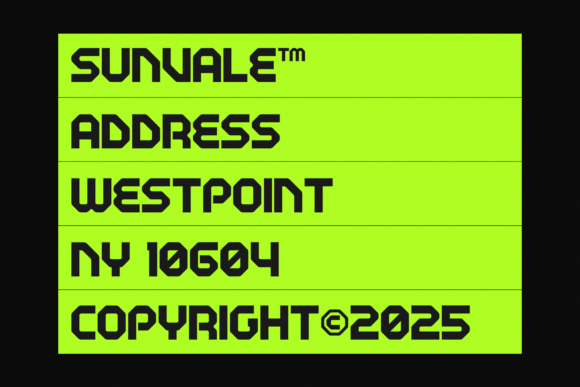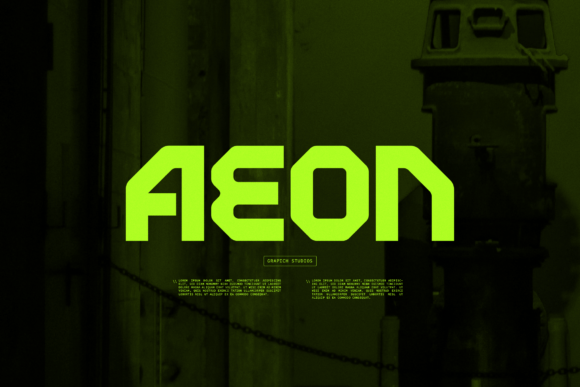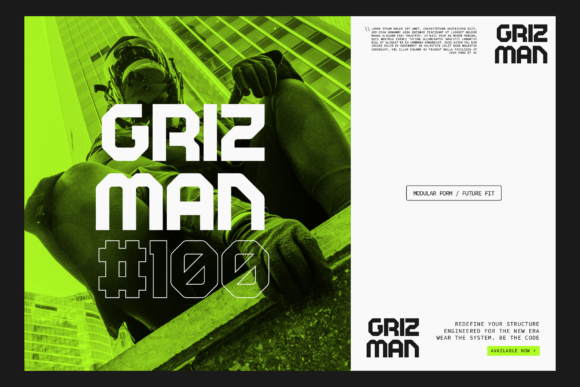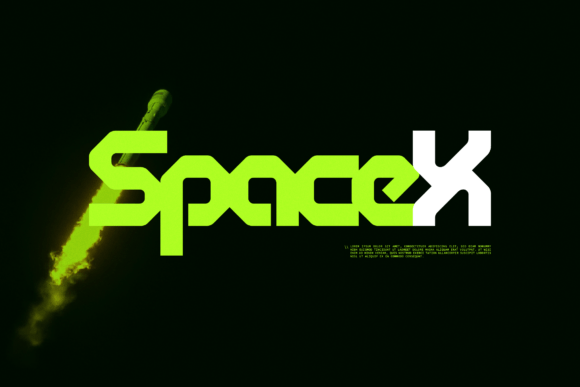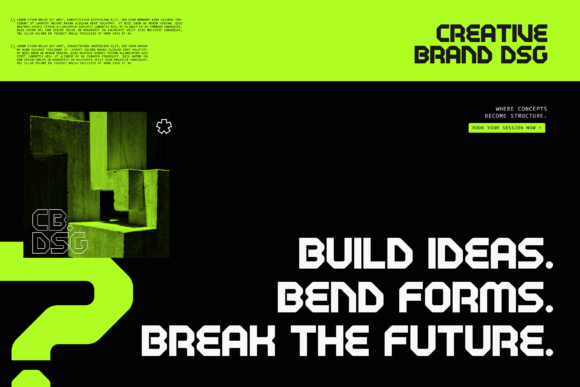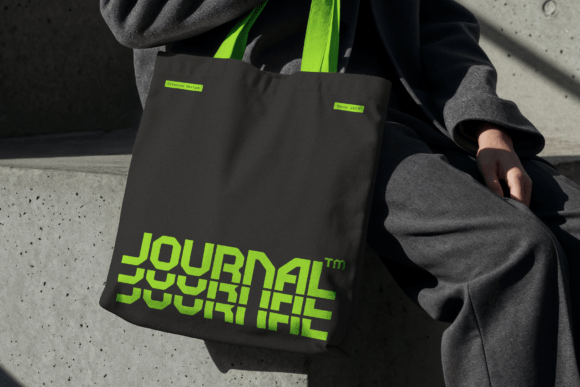
Introducing Arbedo Font: The Modern Display Sans for Creative Projects
Are you a designer or crafter looking for a modern and stylish font to elevate your projects? Look no further than Arbedo Font, a versatile and eye-catching display sans font perfect for a wide range of applications. In this article, we’ll explore the features and benefits of Arbedo Font, and how it can add a touch of sophistication to your designs.
What is Arbedo Font?
Arbedo Font is a modern display sans font designed to make a statement. Its clean lines, geometric shapes, and sleek aesthetic make it an ideal choice for projects that require a contemporary and stylish look. Whether you’re working on a logo, branding project, or product packaging, Arbedo Font is sure to impress.
Key Features of Arbedo Font
- Modern Display Sans: Arbedo Font boasts a modern and sleek design, perfect for projects that require a fresh and contemporary look.
- Versatile: Arbedo Font is suitable for a wide range of projects, from logos and branding to product packaging, posters, and more.
- Easy to Read: Despite its modern and stylized design, Arbedo Font remains highly legible, making it perfect for use in body text and captions.
- Highly Customizable: Arbedo Font comes with a range of weights and styles, allowing you to tailor it to your specific design needs.
Use Cases for Arbedo Font
Arbedo Font is an incredibly versatile font that can be used in a wide range of projects, including:
- Logos and Branding: Create a lasting impression with a custom logo or branding project that showcases Arbedo Font’s modern and sleek design.
- Product Packaging: Elevate your product packaging with Arbedo Font’s stylish and contemporary aesthetic.
- Posters and Quotes: Make a statement with eye-catching posters and quotes that feature Arbedo Font’s bold and geometric design.
- Mugs and Merchandise: Add a touch of personality to your mugs, t-shirts, and other merchandise with Arbedo Font’s modern and stylish design.
- Book Covers and Invitations: Create stunning book covers and invitations that showcase Arbedo Font’s elegant and sophisticated aesthetic.
Why Choose Arbedo Font?
With so many fonts available, why choose Arbedo Font for your next project? Here are just a few reasons:
- Unique and Eye-Catching: Arbedo Font’s modern and stylized design is sure to grab attention and set your project apart from the rest.
- Highly Versatile: Arbedo Font can be used in a wide range of projects, from logos and branding to product packaging and posters.
Arbedo Font is a modern display sans font that is perfect for designers and crafters looking to add a touch of sophistication to their projects. With its clean lines, geometric shapes, and sleek aesthetic, Arbedo Font is sure to impress. Whether you’re working on a logo, branding project, or product packaging, Arbedo Font is an excellent choice. So why wait? Download Arbedo Font today and take your designs to the next level!